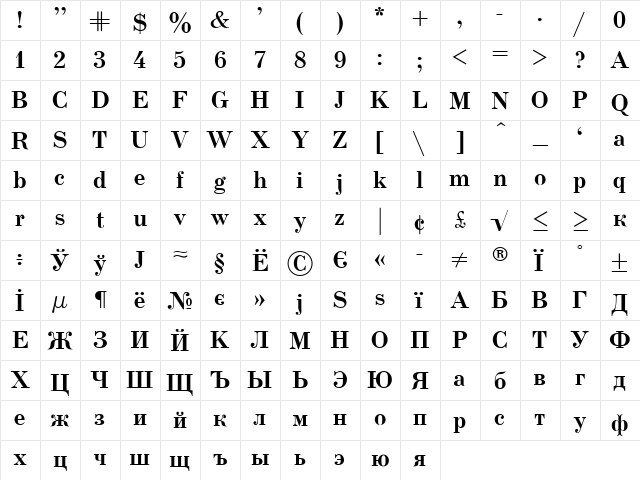
UsualNew Bold Font Preview
UsualNew Bold
Design Context for UsualNew Typeface
UsualNew takes a measured approach to typography — its balanced proportions and neutral character make it a reliable workhorse for both digital and print work. Its bold stroke weight gives it real presence on the page.